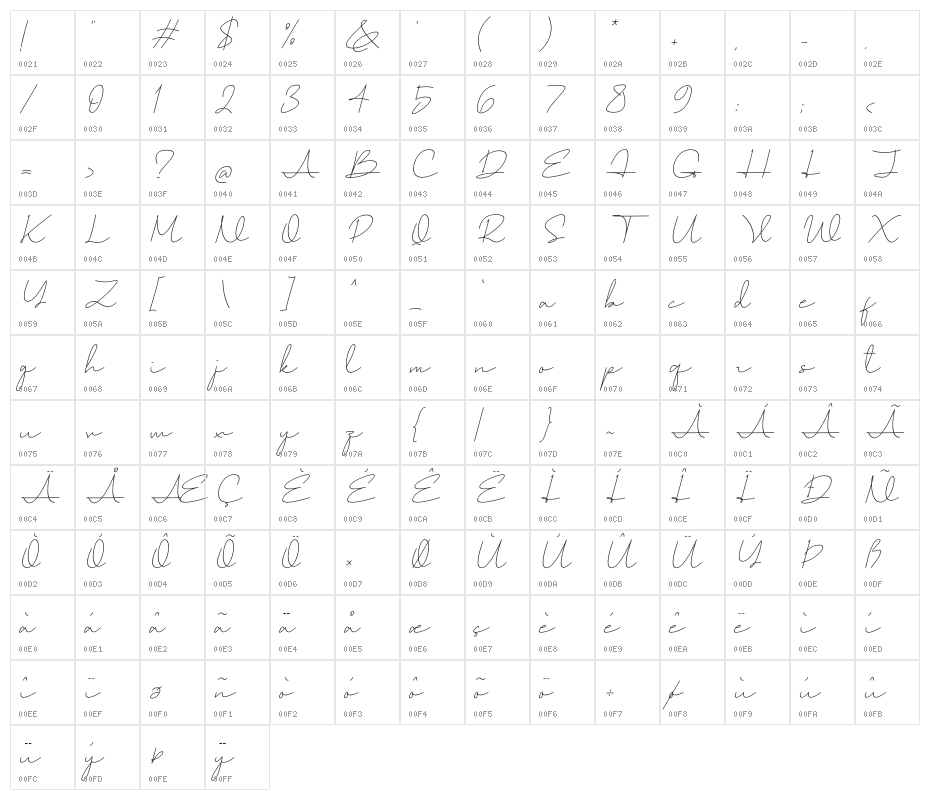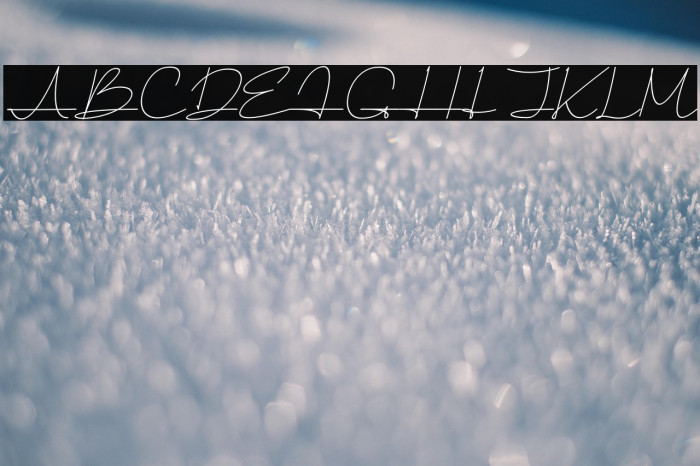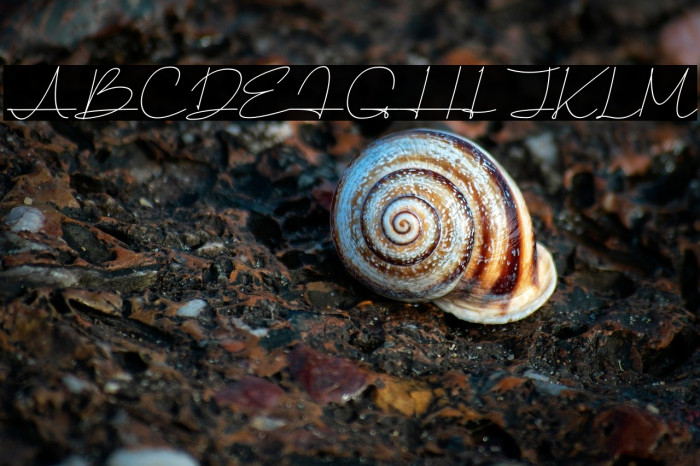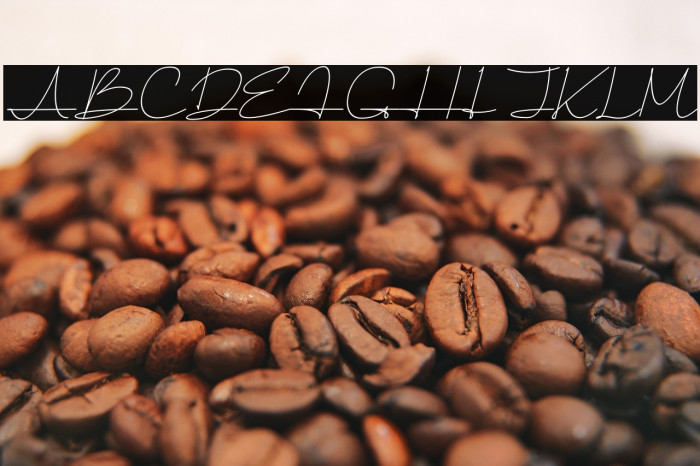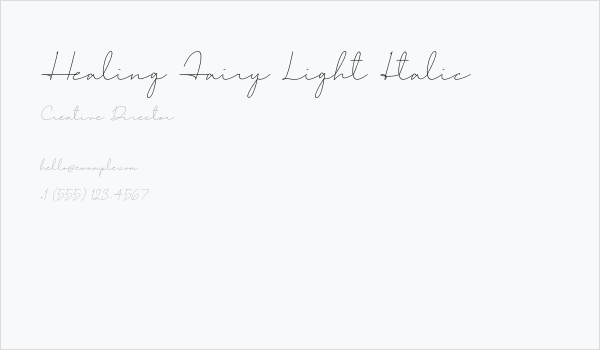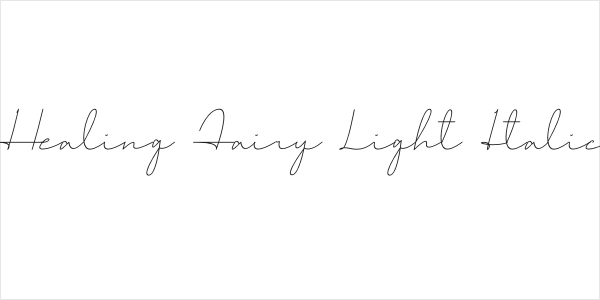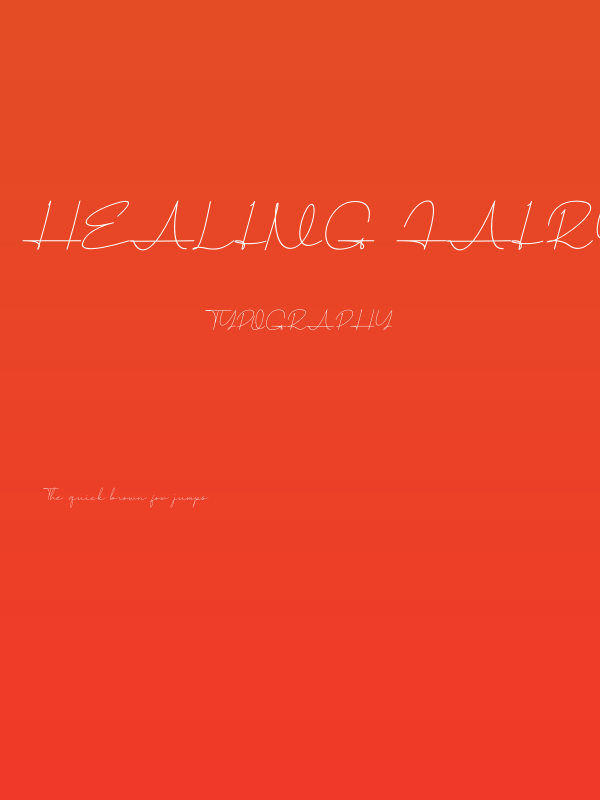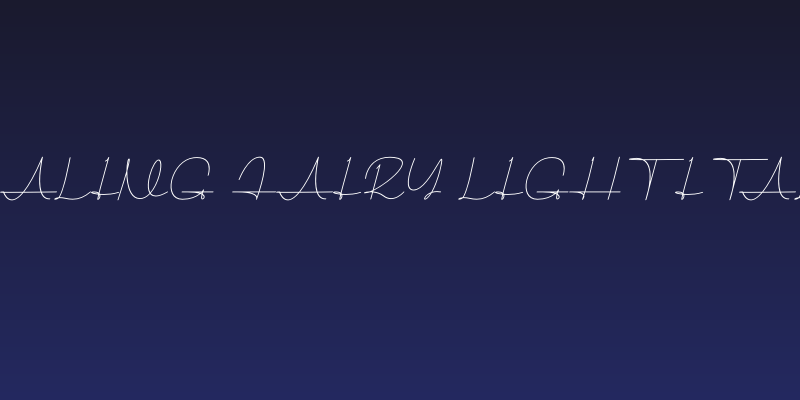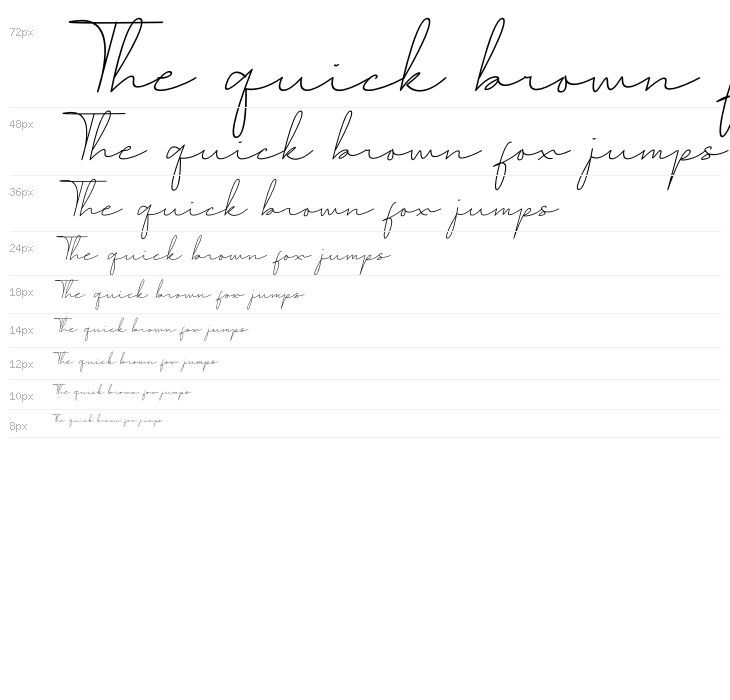
Healing Fairy Light Italic Font
Healing Fairy Light Italic Description
A delicate, flowing handwritten script with thin, continuous strokes and a pronounced slant, evoking a whimsical and airy feel. The characters are loosely connected, with tall ascenders and deep descenders, giving the text an elegant and light appearance.
| Overall Style | Decorative, Whimsical, Elegant |
| Use Case | Logos, Headlines, Decorative text, Invitations |
| Proposed Projects | Invitations, greeting cards, feminine branding, quotes, decorative headings. |